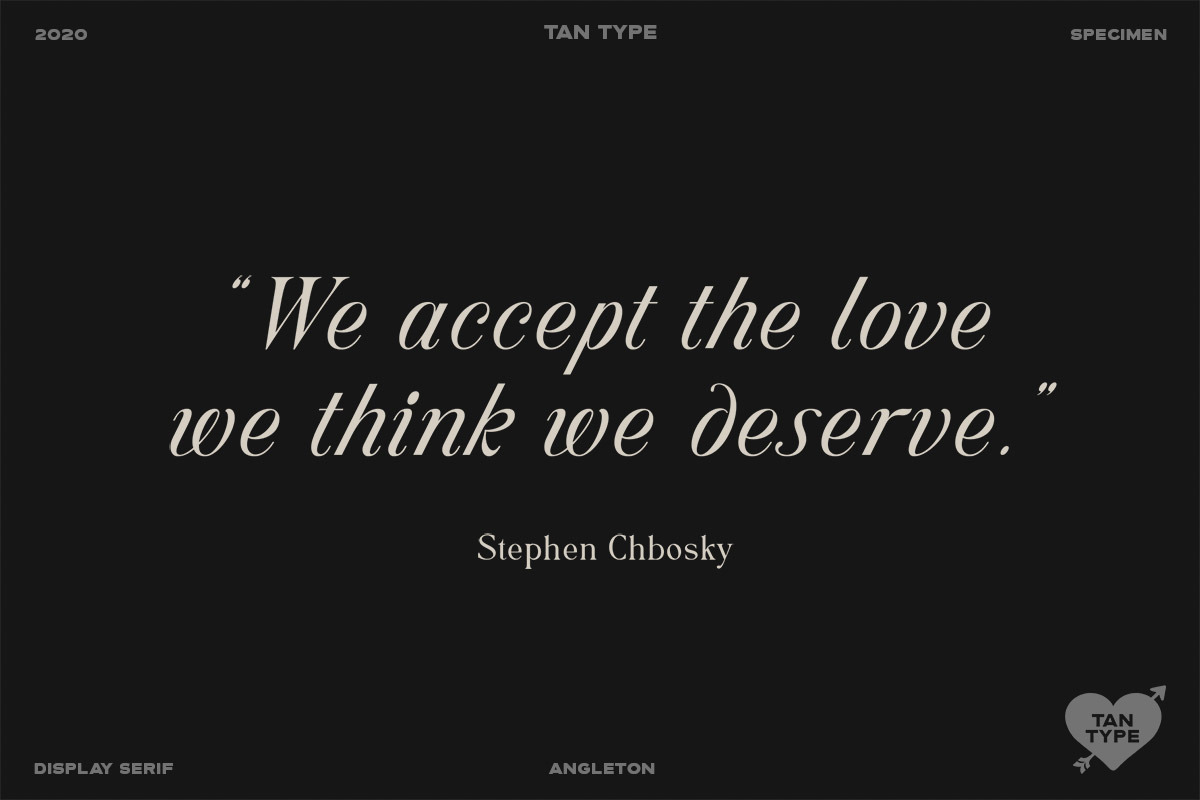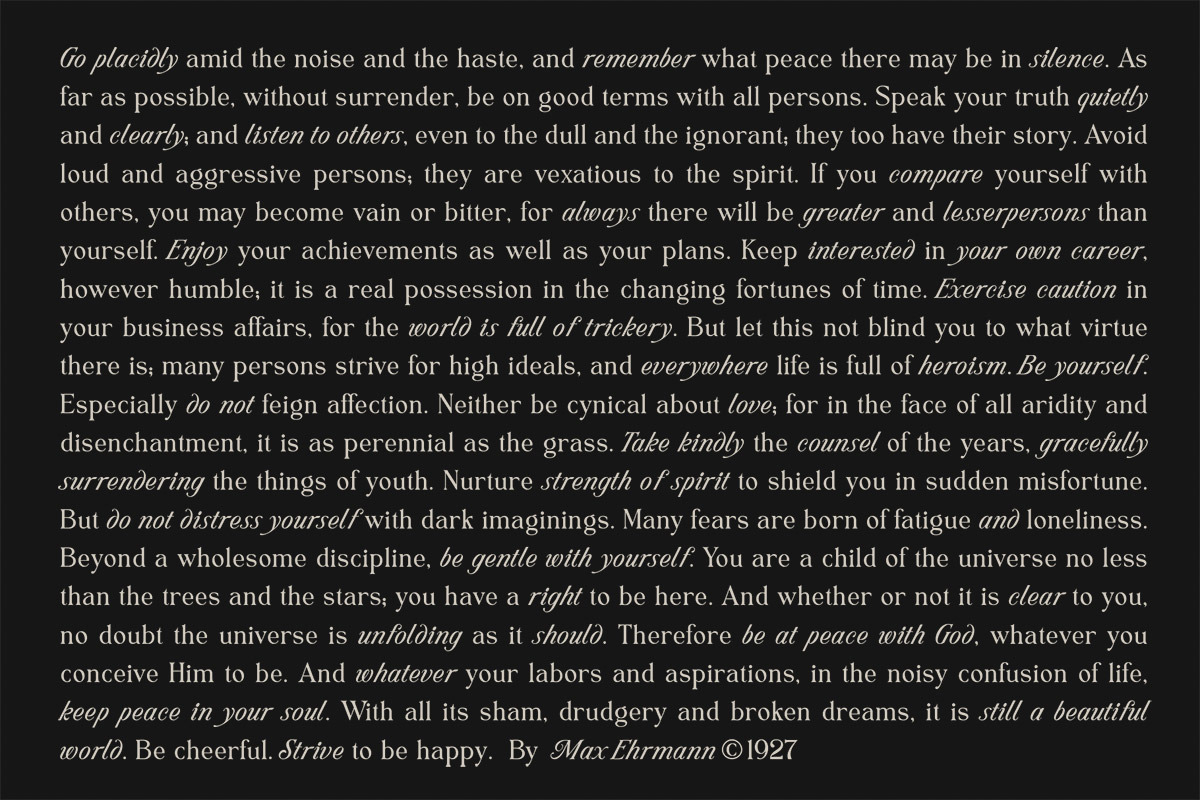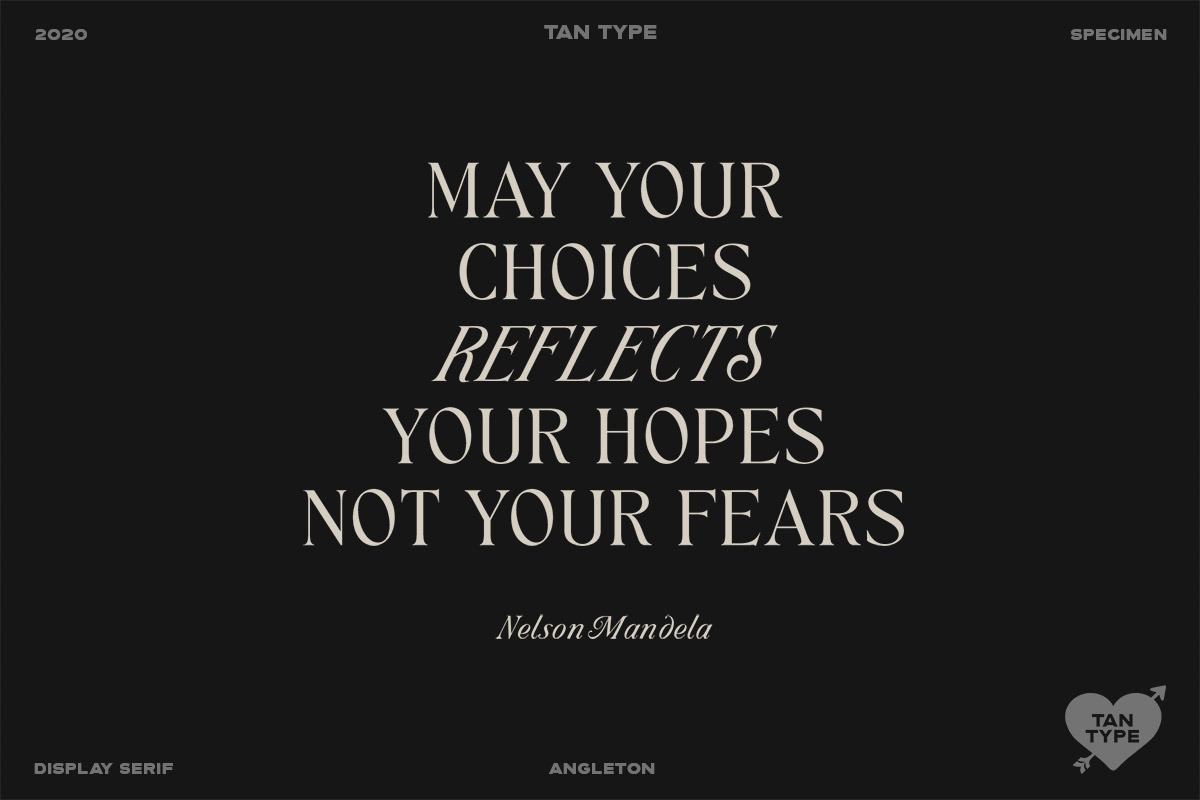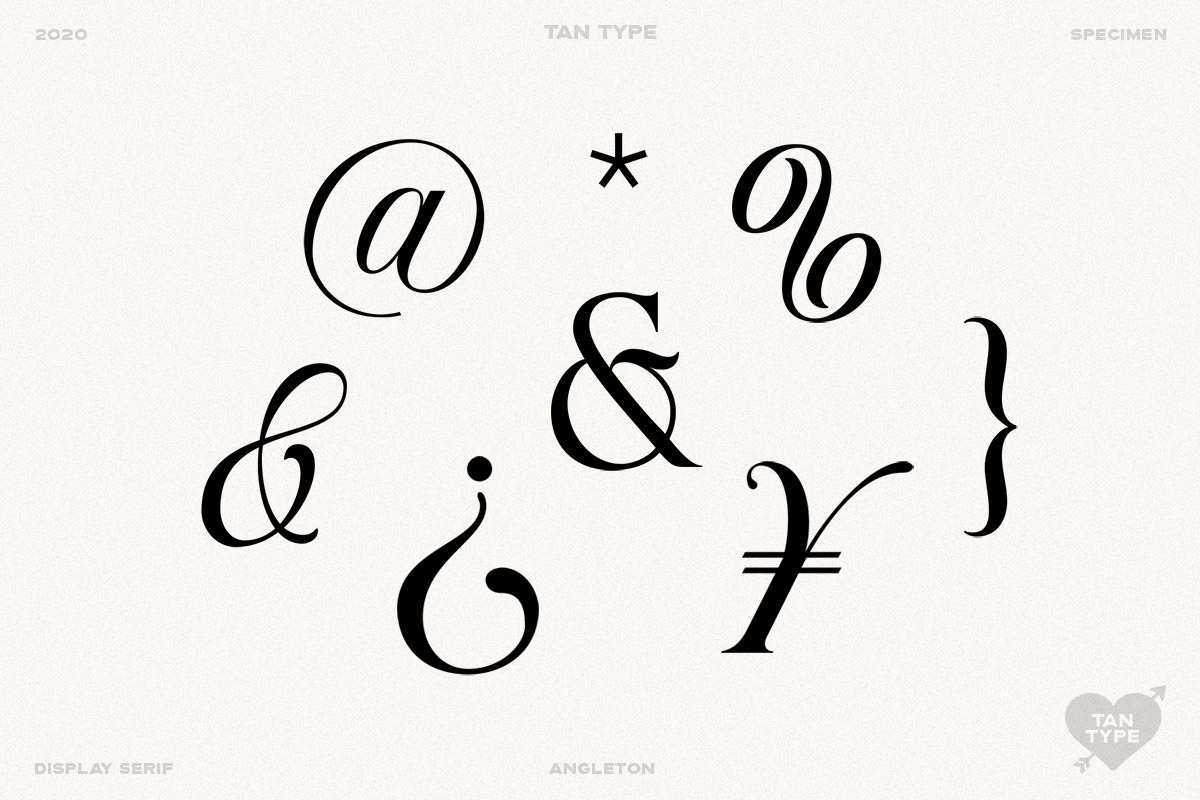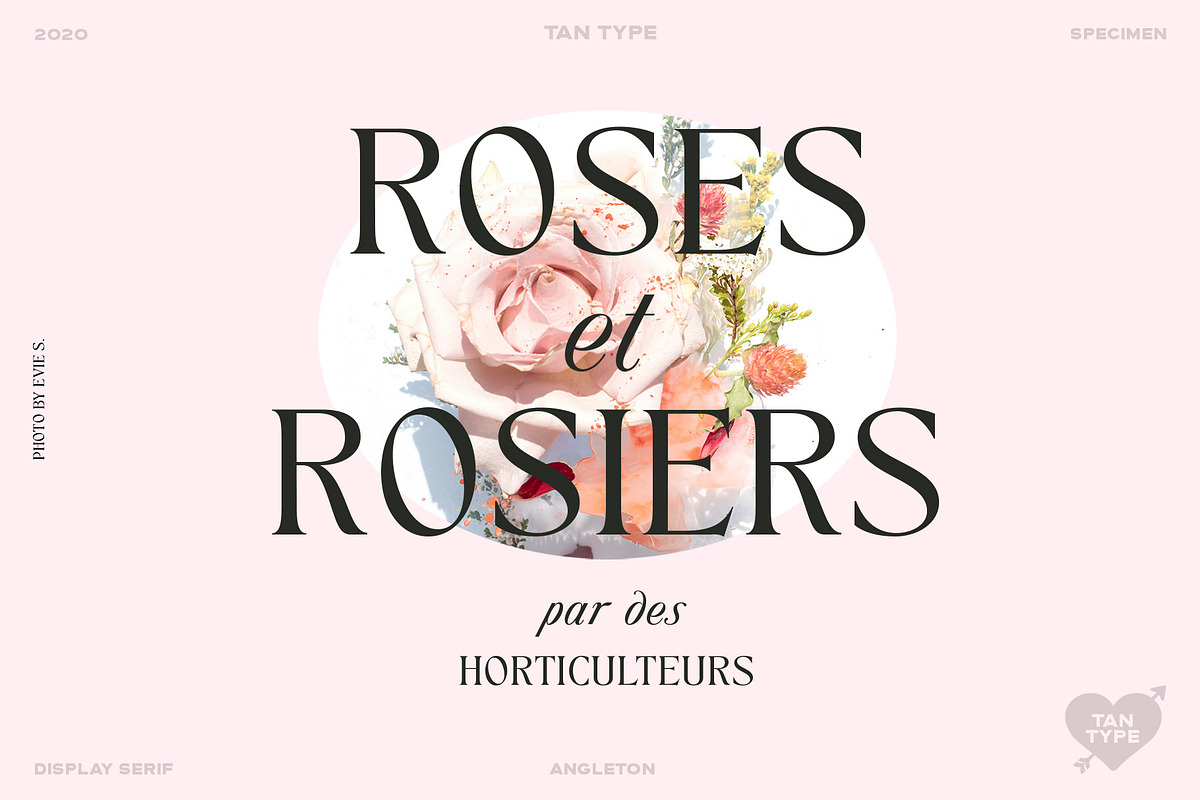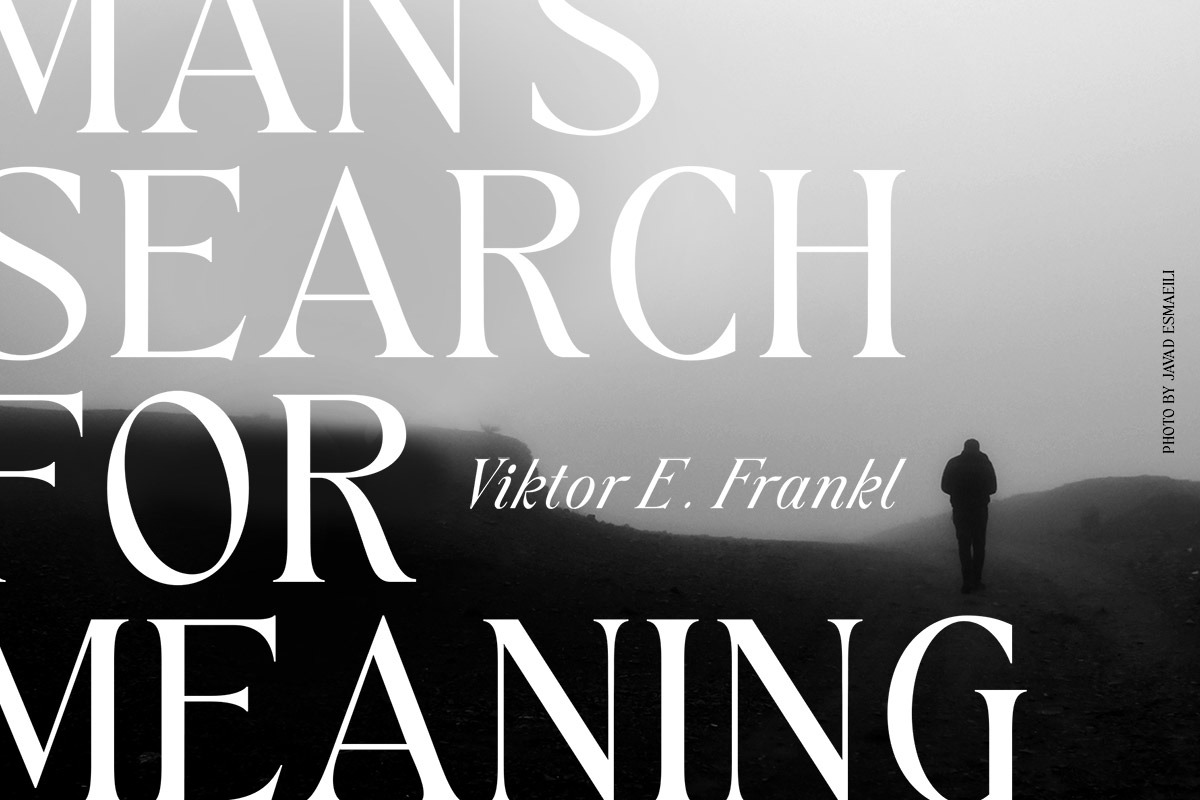
TAN - ANGLETON
TAN - ANGLETON is an elegant combination of serif and serif-italic. They are classy and the perfect match if you needs something modestly stylish. Its high legibility makes it versatile to be used as a display type or body copy.